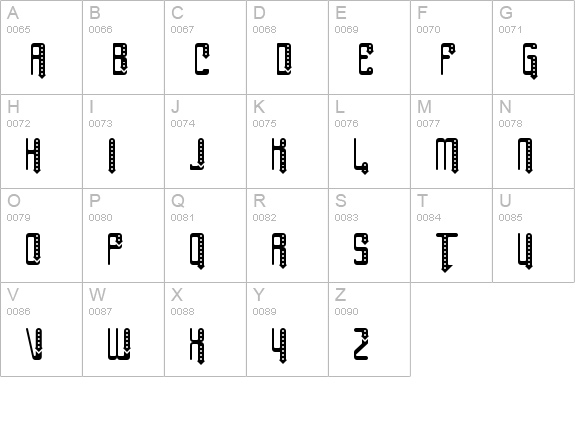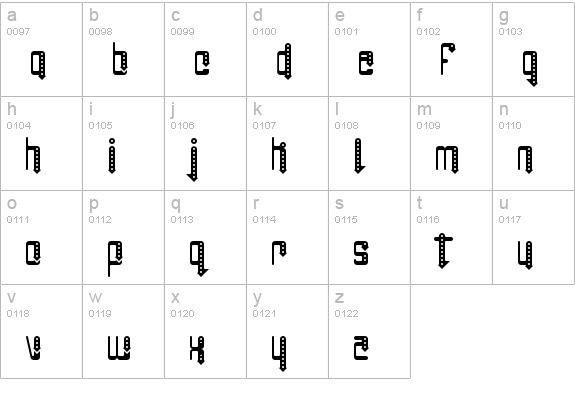
Angie Pierced Font Details
Angie Pierced font is a unique and eye-catching typeface that adds a touch of creativity to any design project. With its distinctive pierced effect, this font is perfect for making a bold statement or adding a modern twist to your work. What makes Angie Pierced font even more appealing is that it is available for free download at FontsMarket.com. This means you can easily access this stylish font and use it in your projects without any cost. Whether you're working on a branding project, poster design, or social media graphics, Angie Pierced font will surely stand out and leave a lasting impression. Don't miss out on the opportunity to enhance your designs with this striking and free font. Download Angie Pierced today and let your creativity shine!